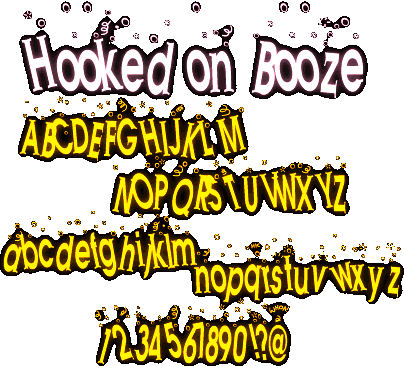
The drunkest font ever made. It's the Dudley Moore of fonts. Actually I tried putting serifs on Avant Garde and it looked like hell so I just made it into a drunk font.